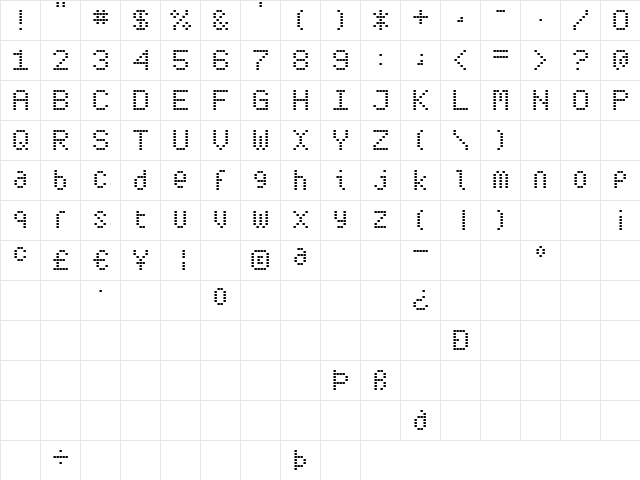
Subway Ticker Regular Free Font
Subway Ticker Regular
Complete Subway Ticker Regular glyph index. Displaying only characters natively supported by Subway Ticker Regular font.
Design Context for Subway Ticker
Subway Ticker is a composed and adaptable typeface that performs quietly and consistently across a wide range of design contexts.